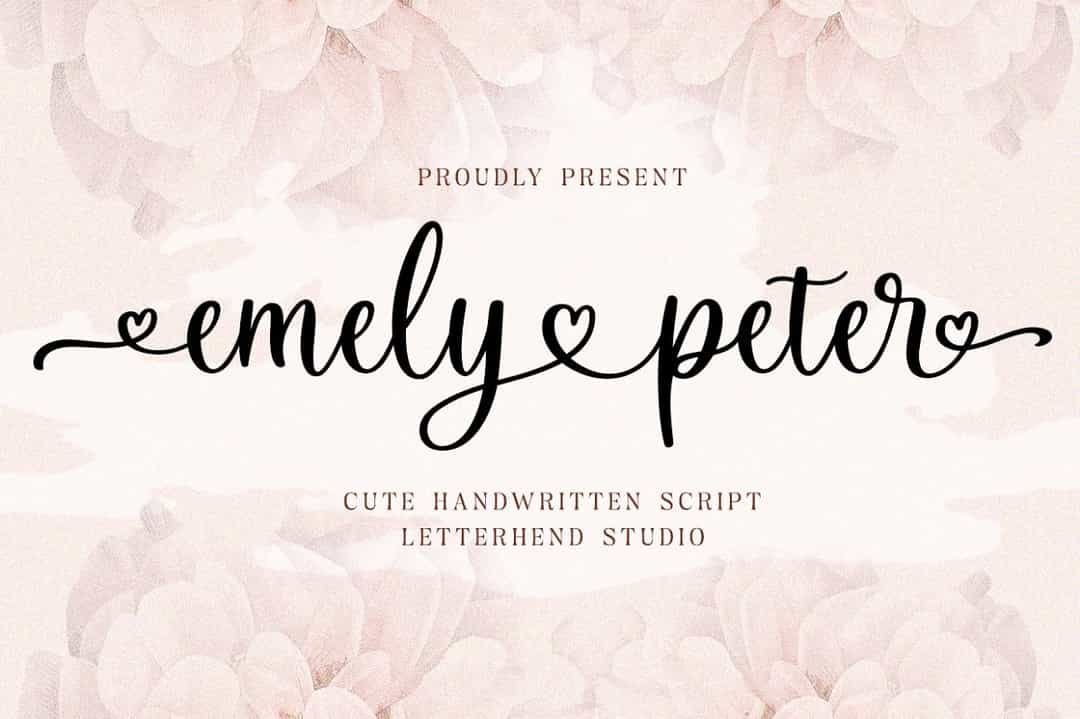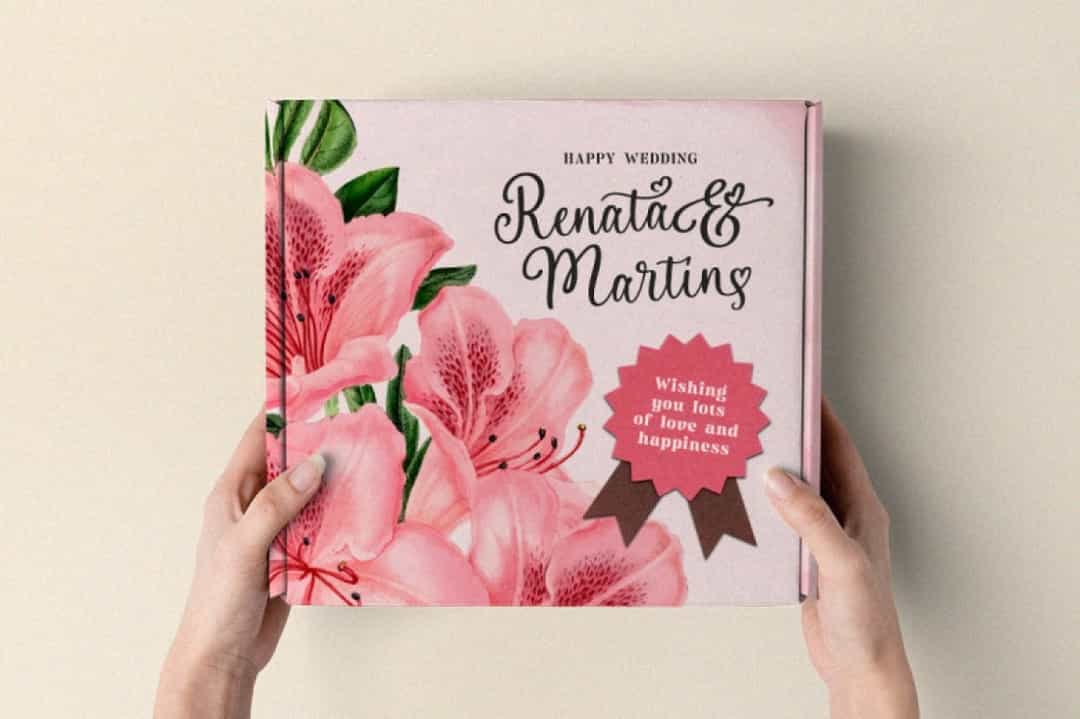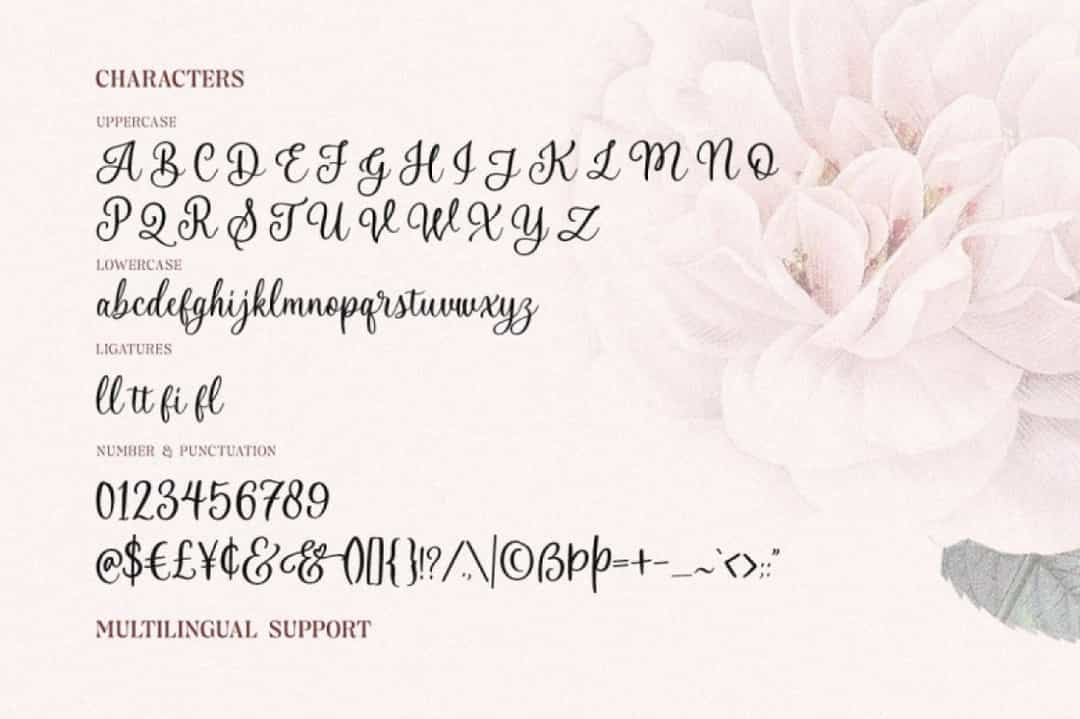
Emely and Peter can be described as an eye-catching contemporary calligraphy font with a love theme, featuring romantic ornaments and swashes that make this font ideal for weddings, romance, feminine style or logos. Additionally, Emely, Peter can also be utilized to great effect in logo design projects and formal settings such as formal events.